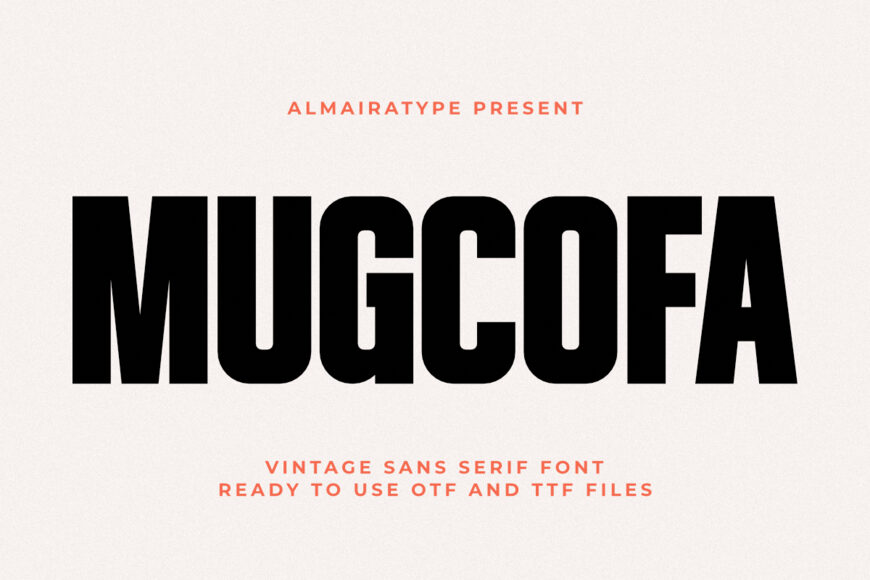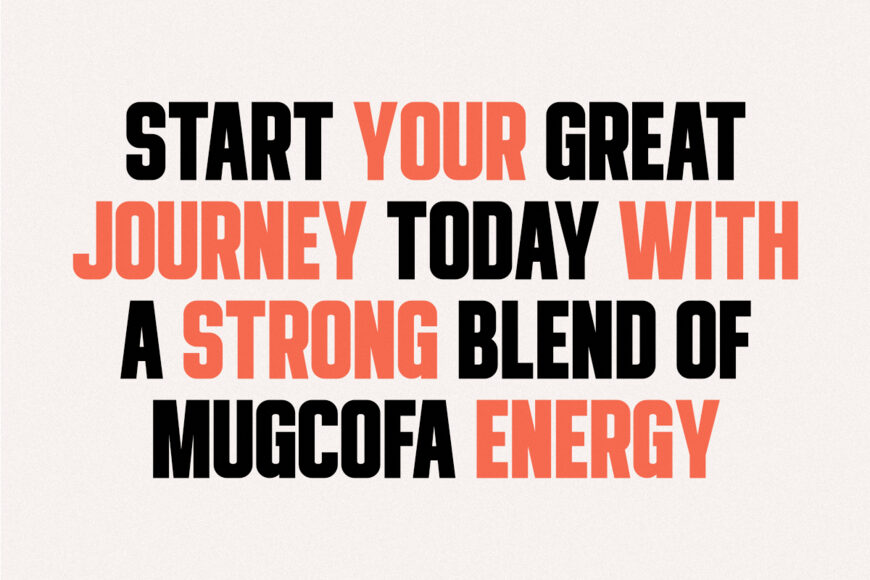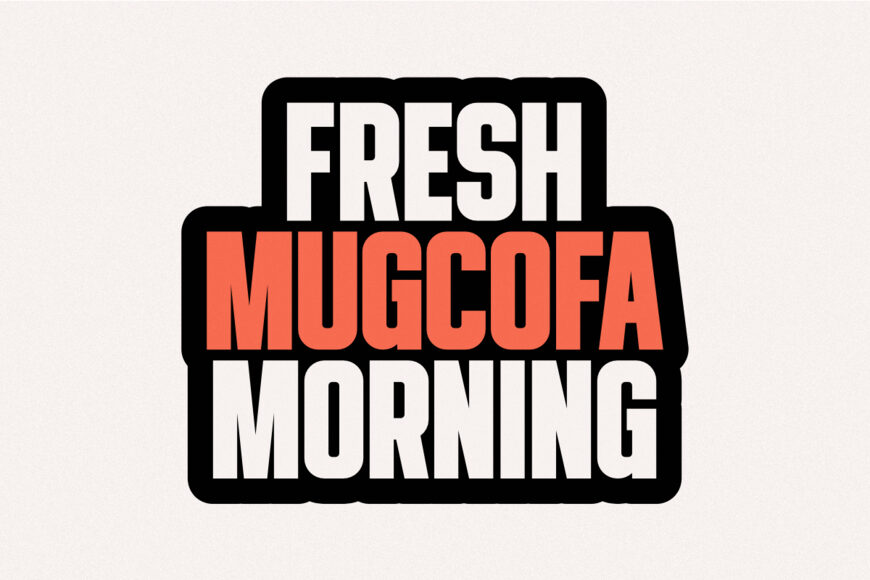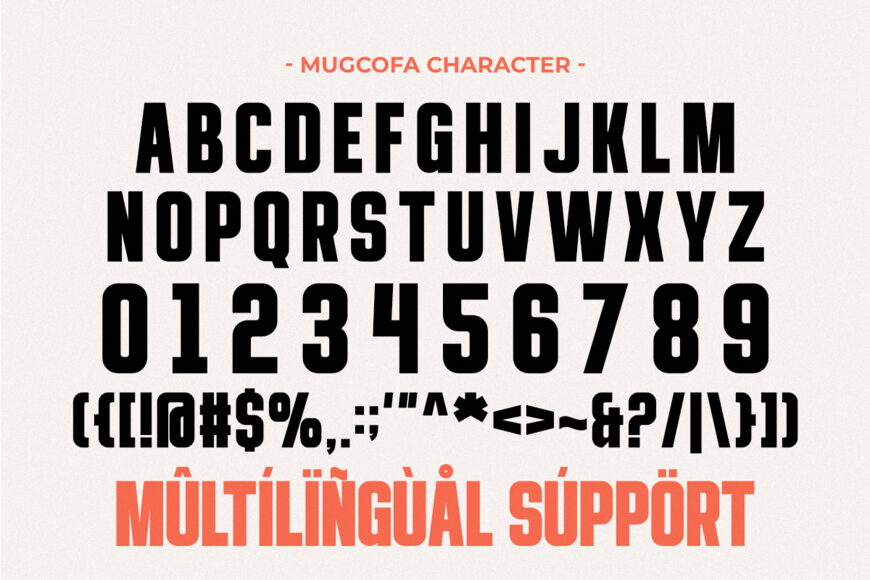
Mugcofa is a vintage sans serif font meticulously designed to bring a delightful vintage warmth and high-impact aesthetic to your modern creative projects.
Featuring a tall condensed structural anatomy with a robust, thick display weight and smoothly rounded geometric contours, this typeface beautifully bridges the gap between classic 70s nostalgia and contemporary commercial design trends.